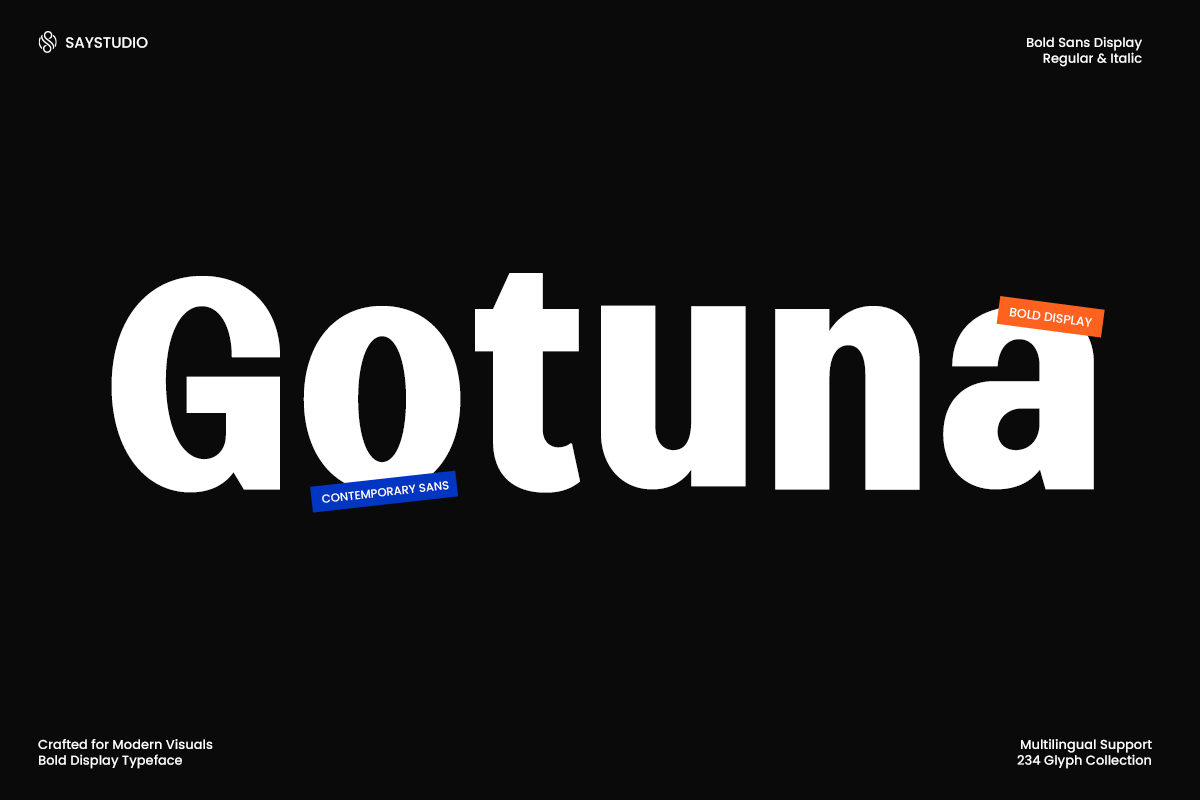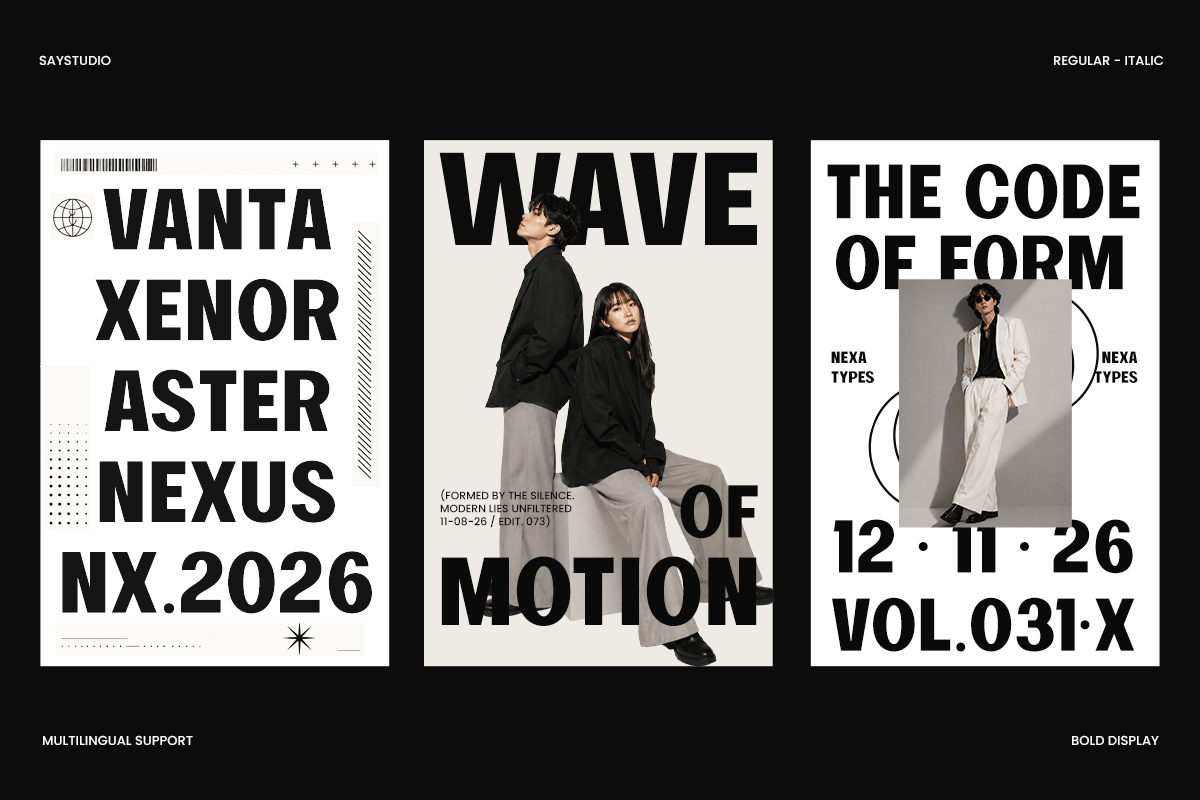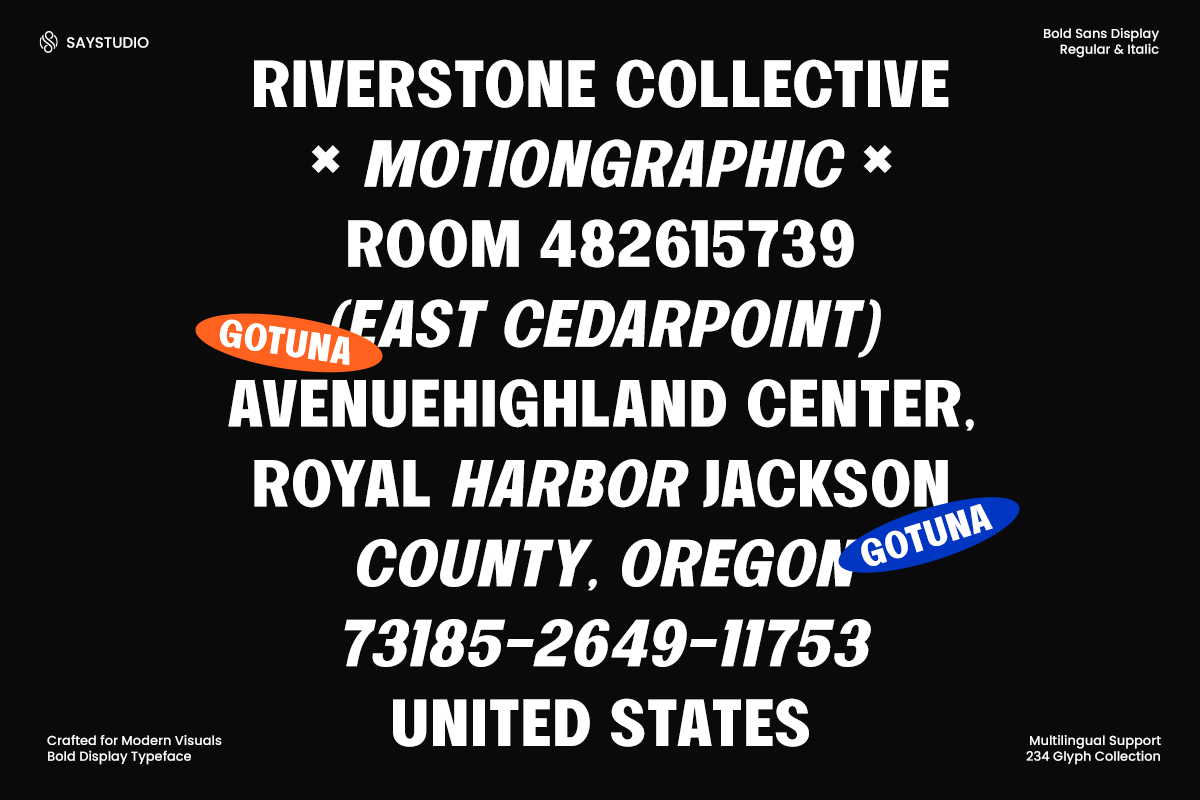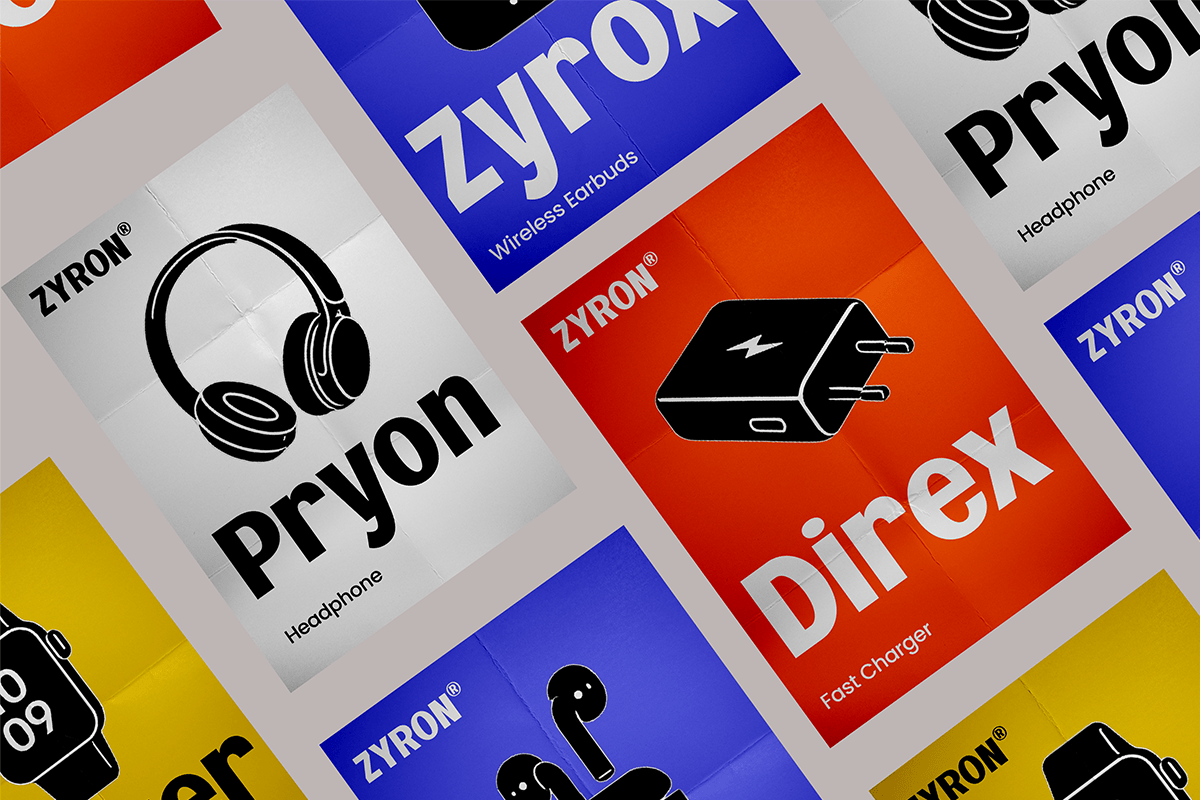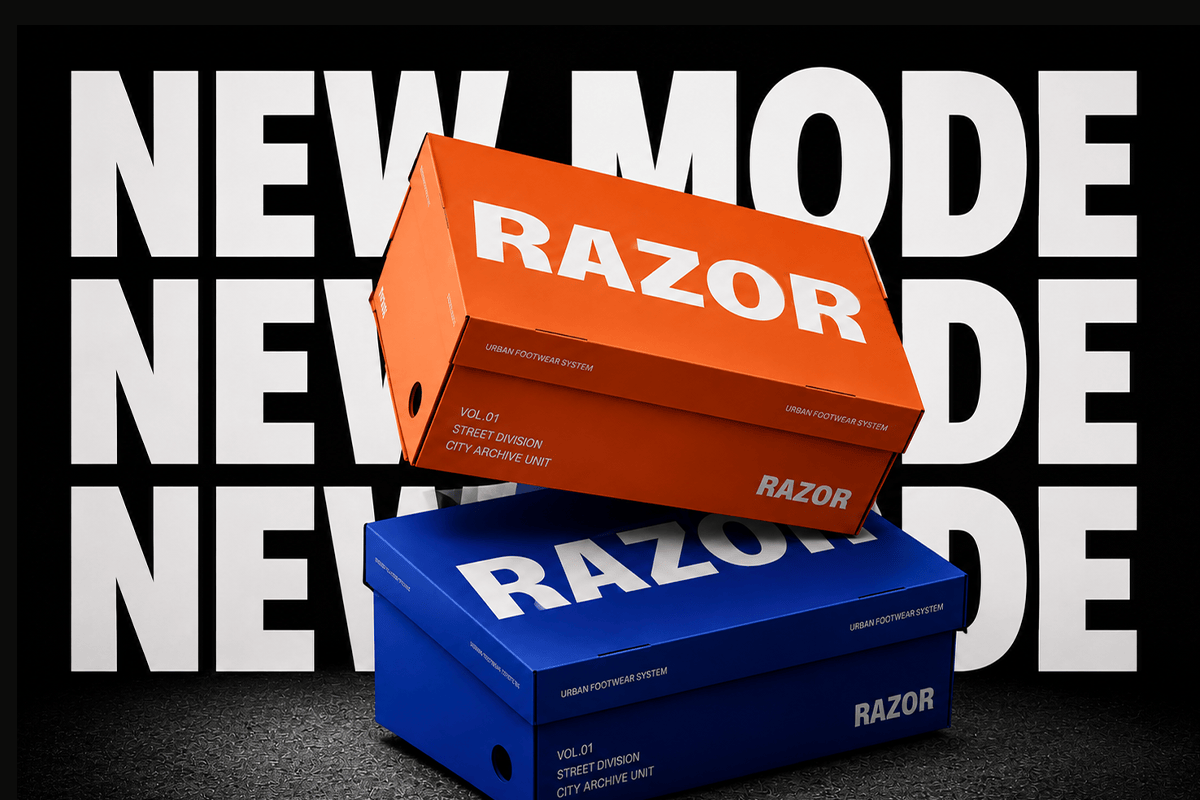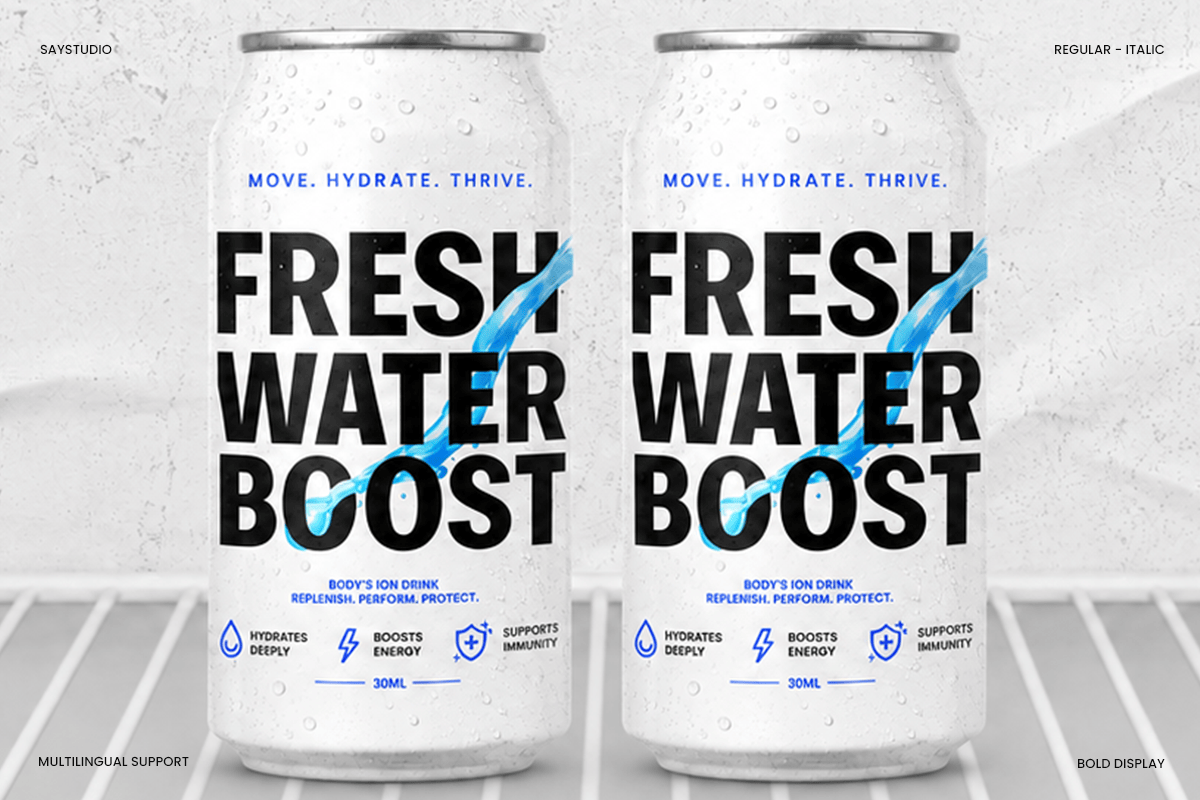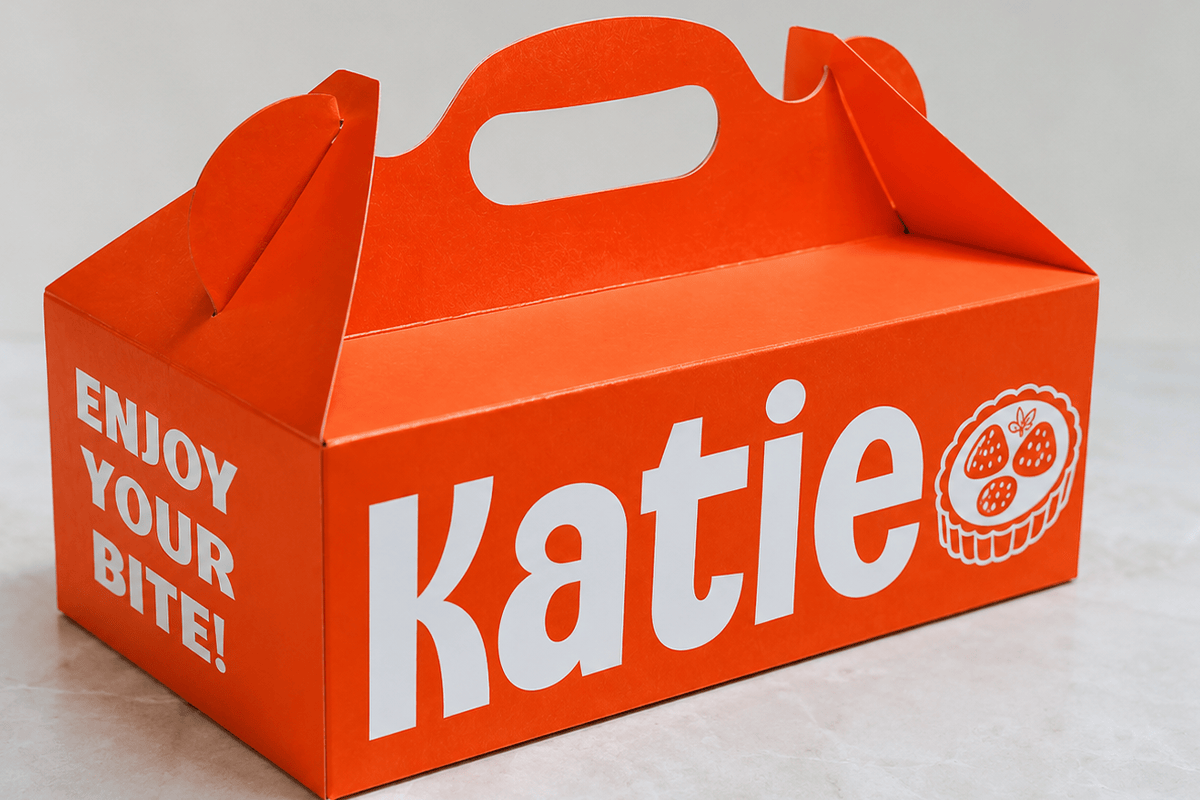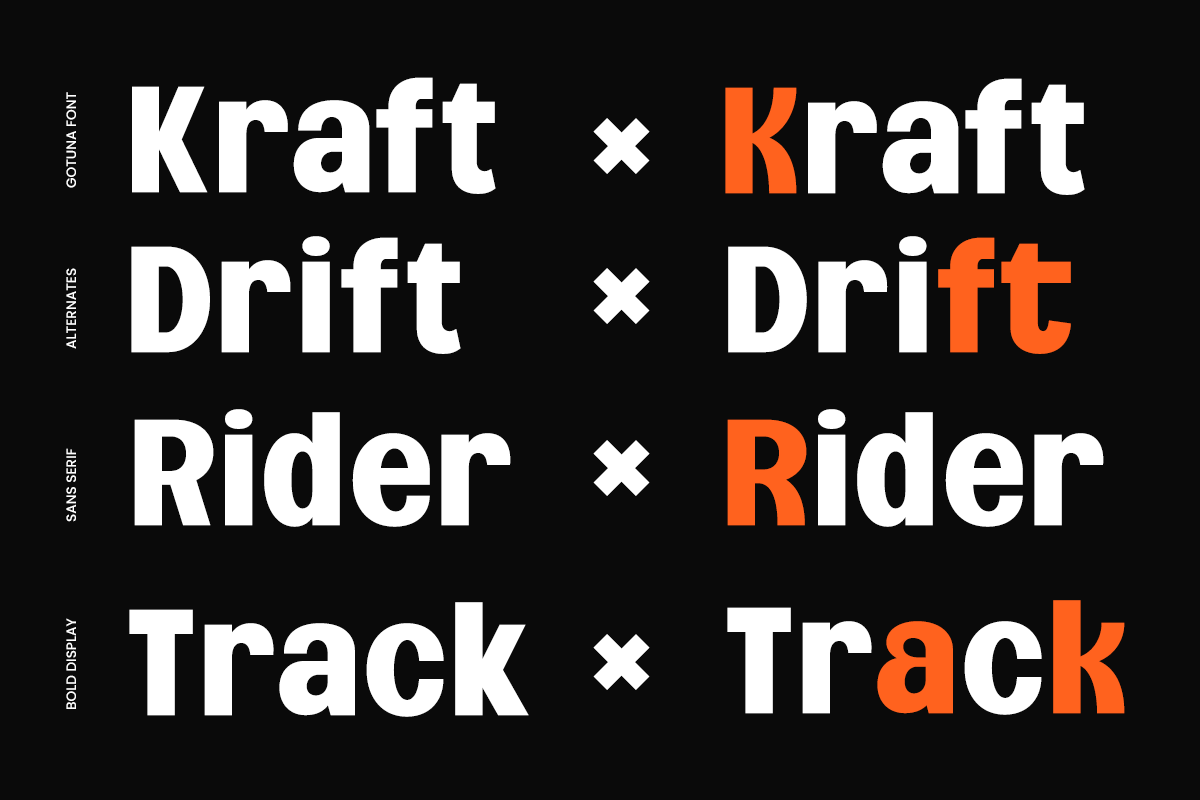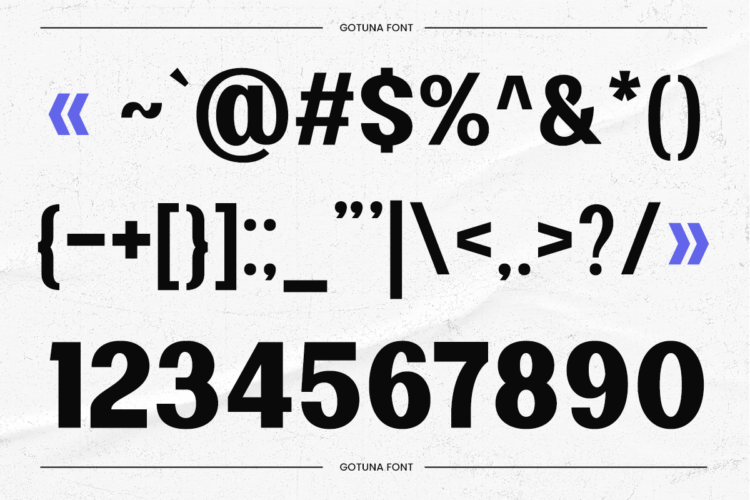
Gotuna – Bold Sans Serif Typeface
Gotuna is a contemporary bold sans serif typeface crafted for modern visual communication. With its strong geometric structure, clean curves, and confident proportions, Gotuna delivers high-impact typography that stands out across branding, editorial layouts, advertising campaigns, digital products, and visual identities.
Designed to balance boldness and clarity, Gotuna features powerful uppercase forms, highly readable lowercase characters, and carefully crafted spacing that creates a clean and professional rhythm. Its modern aesthetic makes it ideal for logos, headlines, packaging, posters, social media content, UI design, and contemporary brand systems.
Equipped with Regular and Italic styles, multilingual support, and an extensive glyph collection, Gotuna provides versatility for designers seeking a bold display font that feels fresh, minimal, and adaptable. Whether you’re building a cutting-edge startup identity, a fashion campaign, or a modern editorial project, Gotuna brings confidence and visual strength to every design.
- Regular and Italic Style
- Stylistic Alternates
- Stylistic Ligature
- Number, Symbol, and Punctuation